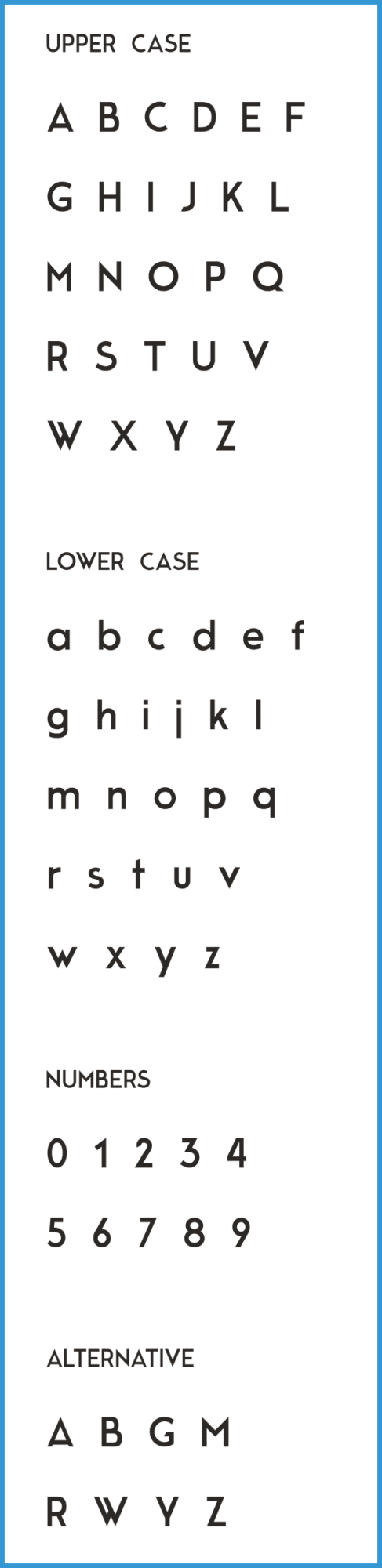
Free Font Of The Day #165 – Moderne Sans
Moderne Sans
The Font is a free sans-serif font inspired by 1920s typography. Designed and released by Marius Kempken.